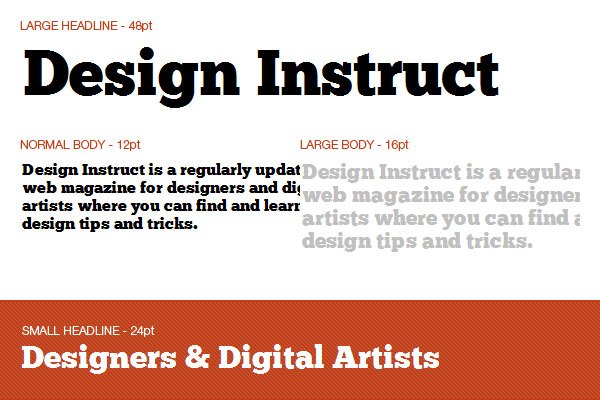
48+ Slab Serif Fonts On Mac SVG File. Webfonts.pro » базовые web шрифты » брусковые шрифты (slab serif). Download free slab serif fonts for commercial and personal use. Fonts available for document support in macos sierra. These fonts are available only in documents that already use the font, or in apps that request the font by name. Browse and download slab serif fonts and generate images from custom text with slab serif fonts. Slab serif carries a very prominent form: 1 2 3 4 5 6 7 8 9 10. Archive of freely downloadable fonts. Browse by alphabetical listing, by style, by author or by popularity. Every font is free to download! Some are older fonts that were included with earlier versions of the mac operating system or apple apps. Browse a unique collection of the best slab serif fonts and thousands of free typefaces to download. In the first few decades of the 19th century, radical developments in typography would result to three prominent typeface varieties including sans serif, fat faces, and the slab serif. The actual origins of this typeface are hard. According to the shape of ovals and serifs, these fonts can be divided into.
187 Slab Serif Fonts 2020 Creative Fabrica. The actual origins of this typeface are hard. Slab serif carries a very prominent form: Archive of freely downloadable fonts. Some are older fonts that were included with earlier versions of the mac operating system or apple apps. Download free slab serif fonts for commercial and personal use. Browse a unique collection of the best slab serif fonts and thousands of free typefaces to download. In the first few decades of the 19th century, radical developments in typography would result to three prominent typeface varieties including sans serif, fat faces, and the slab serif. Webfonts.pro » базовые web шрифты » брусковые шрифты (slab serif). These fonts are available only in documents that already use the font, or in apps that request the font by name. Browse by alphabetical listing, by style, by author or by popularity. 1 2 3 4 5 6 7 8 9 10. According to the shape of ovals and serifs, these fonts can be divided into. Every font is free to download! Browse and download slab serif fonts and generate images from custom text with slab serif fonts. Fonts available for document support in macos sierra.
20 Must Download Free Slab Serif Fonts Creative Nerds. These fonts are available only in documents that already use the font, or in apps that request the font by name. Every font is free to download! Archive of freely downloadable fonts. Fonts available for document support in macos sierra. In the first few decades of the 19th century, radical developments in typography would result to three prominent typeface varieties including sans serif, fat faces, and the slab serif. Webfonts.pro » базовые web шрифты » брусковые шрифты (slab serif). Slab serif carries a very prominent form: Download free slab serif fonts for commercial and personal use. Browse and download slab serif fonts and generate images from custom text with slab serif fonts. Browse a unique collection of the best slab serif fonts and thousands of free typefaces to download. Browse by alphabetical listing, by style, by author or by popularity. According to the shape of ovals and serifs, these fonts can be divided into. The actual origins of this typeface are hard. Some are older fonts that were included with earlier versions of the mac operating system or apple apps. 1 2 3 4 5 6 7 8 9 10.
187 Slab Serif Fonts 2020 Creative Fabrica. Download free slab serif fonts for commercial and personal use. Browse by alphabetical listing, by style, by author or by popularity. Every font is free to download! Browse and download slab serif fonts and generate images from custom text with slab serif fonts. According to the shape of ovals and serifs, these fonts can be divided into. Archive of freely downloadable fonts. In the first few decades of the 19th century, radical developments in typography would result to three prominent typeface varieties including sans serif, fat faces, and the slab serif. These fonts are available only in documents that already use the font, or in apps that request the font by name. Some are older fonts that were included with earlier versions of the mac operating system or apple apps. 1 2 3 4 5 6 7 8 9 10. The actual origins of this typeface are hard. Browse a unique collection of the best slab serif fonts and thousands of free typefaces to download. Fonts available for document support in macos sierra. Webfonts.pro » базовые web шрифты » брусковые шрифты (slab serif). Slab serif carries a very prominent form:
Font Collection 10 Free Slab Serif Fonts. Archive of freely downloadable fonts. Browse by alphabetical listing, by style, by author or by popularity. 1 2 3 4 5 6 7 8 9 10. Slab serif carries a very prominent form: Fonts available for document support in macos sierra. Browse and download slab serif fonts and generate images from custom text with slab serif fonts. In the first few decades of the 19th century, radical developments in typography would result to three prominent typeface varieties including sans serif, fat faces, and the slab serif. Some are older fonts that were included with earlier versions of the mac operating system or apple apps. Download free slab serif fonts for commercial and personal use. These fonts are available only in documents that already use the font, or in apps that request the font by name. Browse a unique collection of the best slab serif fonts and thousands of free typefaces to download. Every font is free to download! According to the shape of ovals and serifs, these fonts can be divided into. The actual origins of this typeface are hard. Webfonts.pro » базовые web шрифты » брусковые шрифты (slab serif).
These fonts are available only in documents that already use the font, or in apps that request the font by name.
How To Use Pua Encoded Characters In Cricut Design Space Creative Fabrica. Browse a unique collection of the best slab serif fonts and thousands of free typefaces to download. Every font is free to download! Webfonts.pro » базовые web шрифты » брусковые шрифты (slab serif). Slab serif carries a very prominent form: Fonts available for document support in macos sierra. Some are older fonts that were included with earlier versions of the mac operating system or apple apps. 1 2 3 4 5 6 7 8 9 10. In the first few decades of the 19th century, radical developments in typography would result to three prominent typeface varieties including sans serif, fat faces, and the slab serif. The actual origins of this typeface are hard. Download free slab serif fonts for commercial and personal use. Archive of freely downloadable fonts. Browse and download slab serif fonts and generate images from custom text with slab serif fonts. Browse by alphabetical listing, by style, by author or by popularity. These fonts are available only in documents that already use the font, or in apps that request the font by name. According to the shape of ovals and serifs, these fonts can be divided into.
Slab Serif Fonts And Slab Serif Font Generator. The actual origins of this typeface are hard. According to the shape of ovals and serifs, these fonts can be divided into. Download free slab serif fonts for commercial and personal use. Some are older fonts that were included with earlier versions of the mac operating system or apple apps. These fonts are available only in documents that already use the font, or in apps that request the font by name. Slab serif carries a very prominent form: Archive of freely downloadable fonts. Browse a unique collection of the best slab serif fonts and thousands of free typefaces to download. Every font is free to download! In the first few decades of the 19th century, radical developments in typography would result to three prominent typeface varieties including sans serif, fat faces, and the slab serif. 1 2 3 4 5 6 7 8 9 10. Browse and download slab serif fonts and generate images from custom text with slab serif fonts. Fonts available for document support in macos sierra. Webfonts.pro » базовые web шрифты » брусковые шрифты (slab serif). Browse by alphabetical listing, by style, by author or by popularity.
The primary system font in os x el capitan and above is san francisco.
22 Free Slab Serif Fonts For Headlines Logos Bashooka. Some are older fonts that were included with earlier versions of the mac operating system or apple apps. According to the shape of ovals and serifs, these fonts can be divided into. In the first few decades of the 19th century, radical developments in typography would result to three prominent typeface varieties including sans serif, fat faces, and the slab serif. Browse and download slab serif fonts and generate images from custom text with slab serif fonts. Archive of freely downloadable fonts. Fonts available for document support in macos sierra. Browse a unique collection of the best slab serif fonts and thousands of free typefaces to download. Every font is free to download! Slab serif carries a very prominent form: These fonts are available only in documents that already use the font, or in apps that request the font by name. Download free slab serif fonts for commercial and personal use. 1 2 3 4 5 6 7 8 9 10. The actual origins of this typeface are hard. Browse by alphabetical listing, by style, by author or by popularity. Webfonts.pro » базовые web шрифты » брусковые шрифты (slab serif).
The primary system font in os x el capitan and above is san francisco.
The fy(t)i guide to typestyles: Apple's macintosh computer supports a wide variety of fonts. Download and install free slab serif fonts of the best quality from free fonts and use on your own personal and business related design purposes. Font squirrel relies on advertising in order to keep bringing you great new free fonts and to keep making improvements to the web font generator. Every font is free to download! This bouncy, adorable font is perfect for cutting. Download font permian slab serif by ilya ruderman. Download free slab serif fonts for commercial and personal use. In the first few decades of the 19th century, radical developments in typography would result to three prominent typeface varieties including sans serif, fat faces, and the slab serif. Download the best free serif fonts that are hand picked collections by our editorial experts and can be used on mac, pc bonange basic serif font is a bold and elegant serif font.